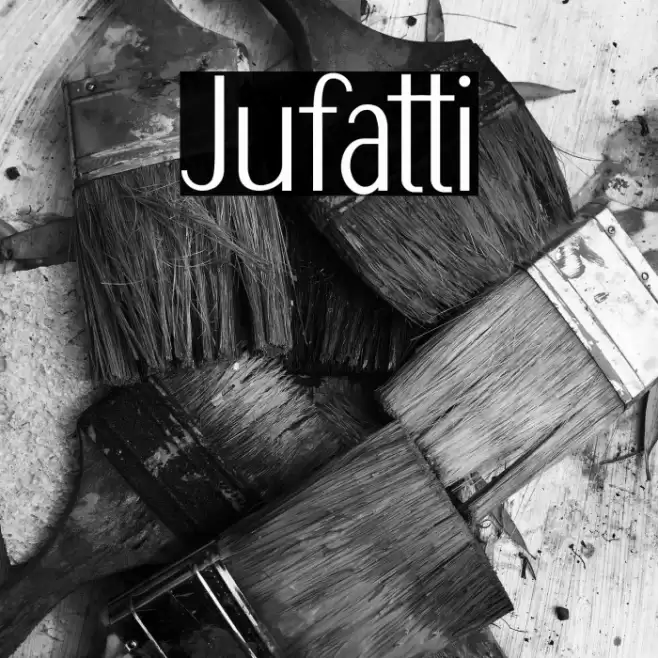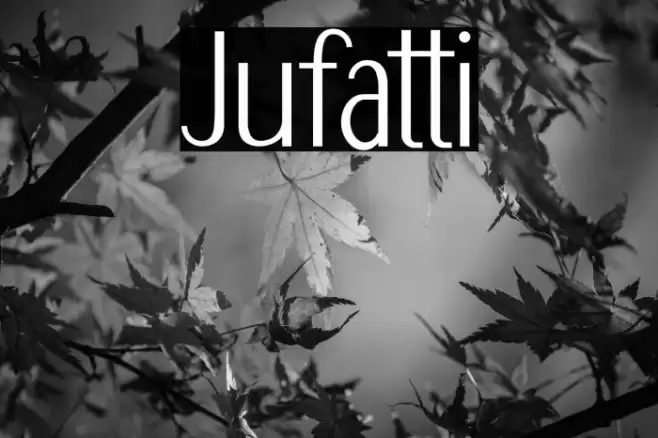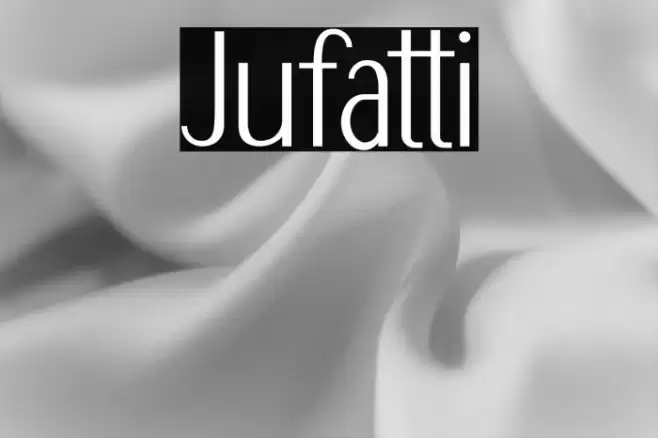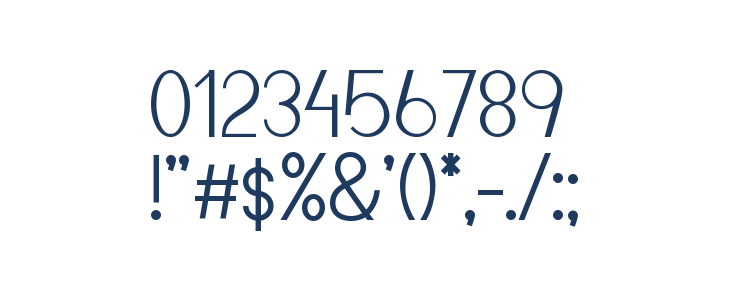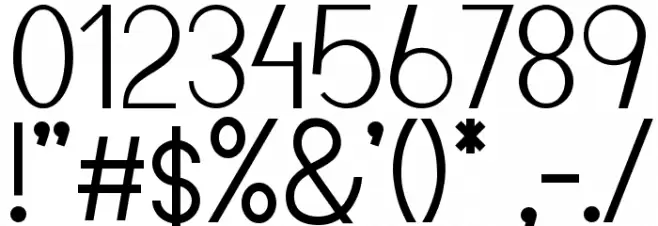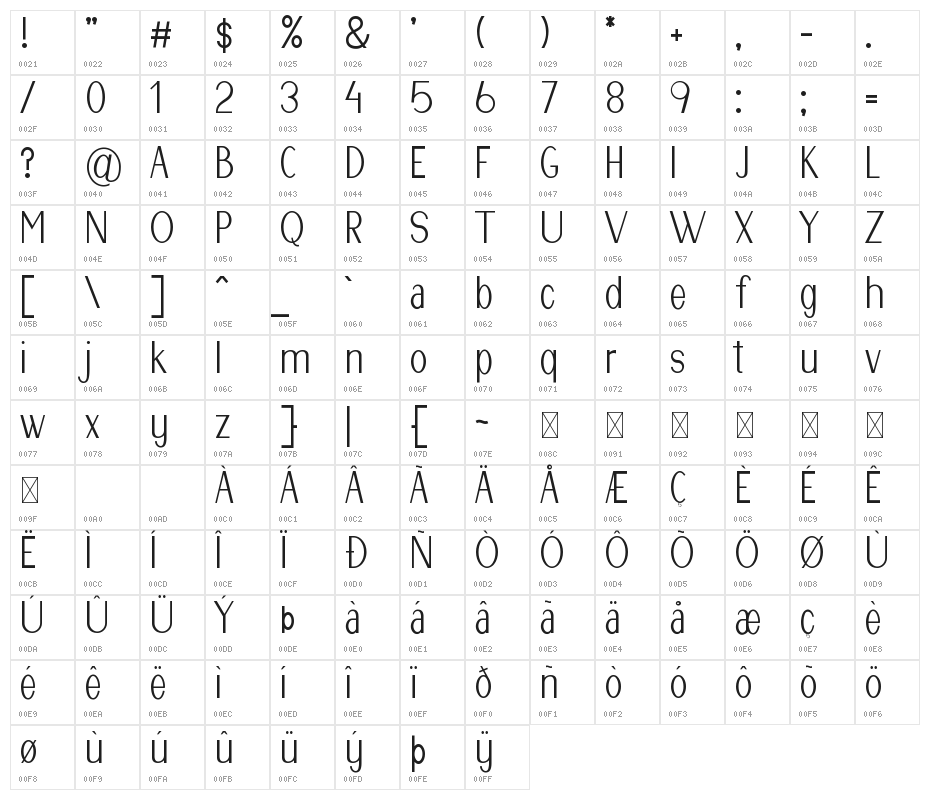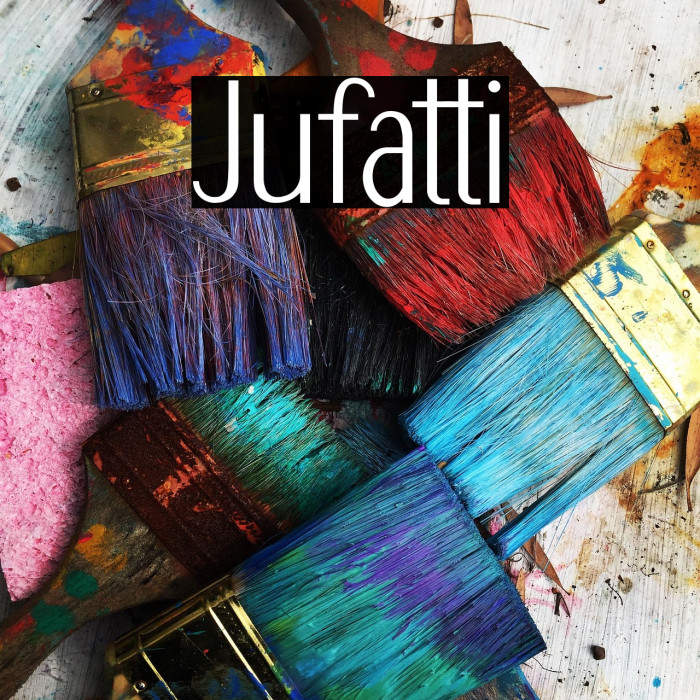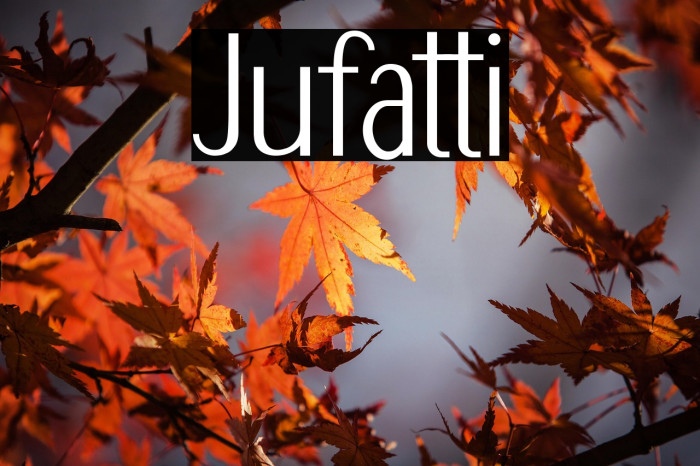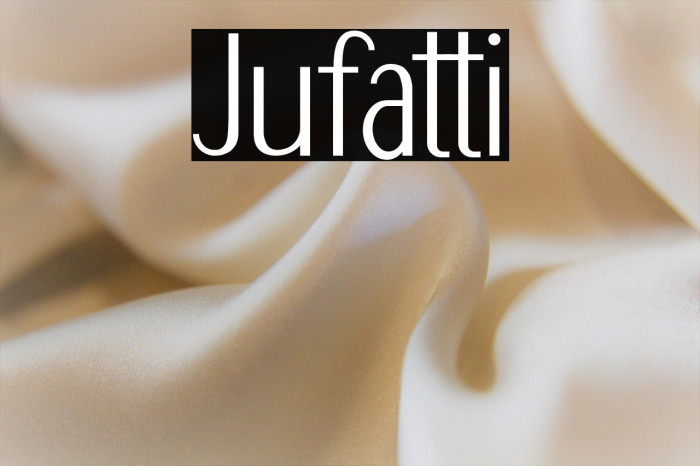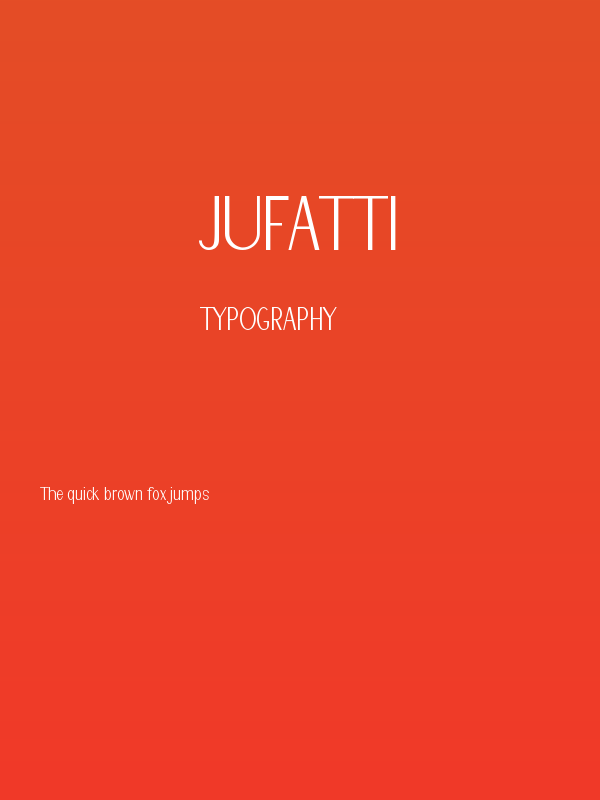
Jufatti Font
Jufatti Description
This font features a clean and modern sans-serif design, characterized by its tall and narrow letterforms. The uppercase letters are uniform in height, while the lowercase letters maintain a consistent x-height, contributing to a balanced and harmonious appearance. The numerals are proportional, aligning well with the overall geometric style of the font. Special characters are designed with clarity and simplicity, ensuring legibility across various applications. The font's minimalistic approach makes it versatile for both digital and print media, offering a professional and contemporary look.
A modern, clean sans-serif font with tall, narrow letterforms from Regular fonts.